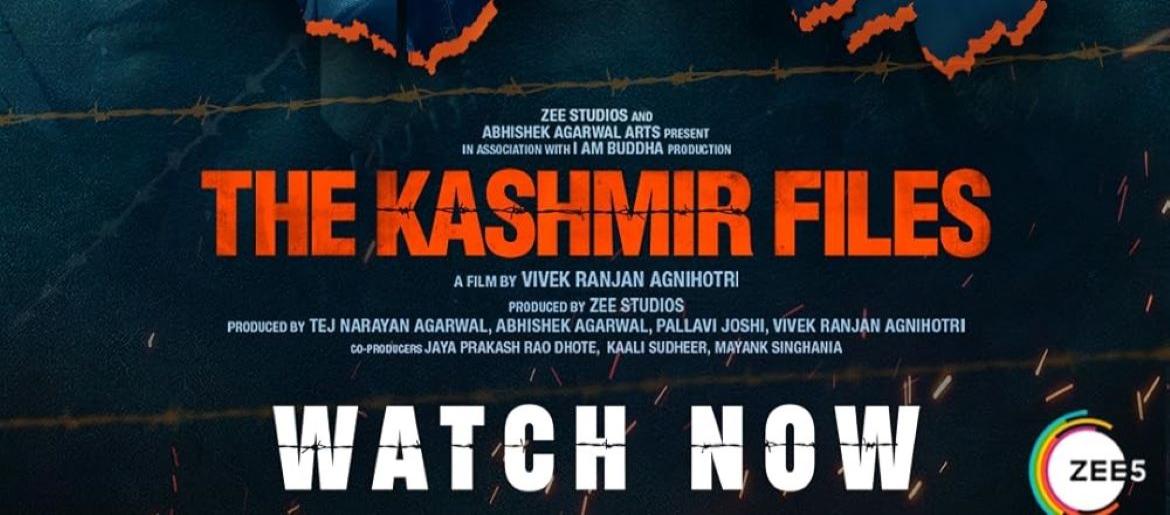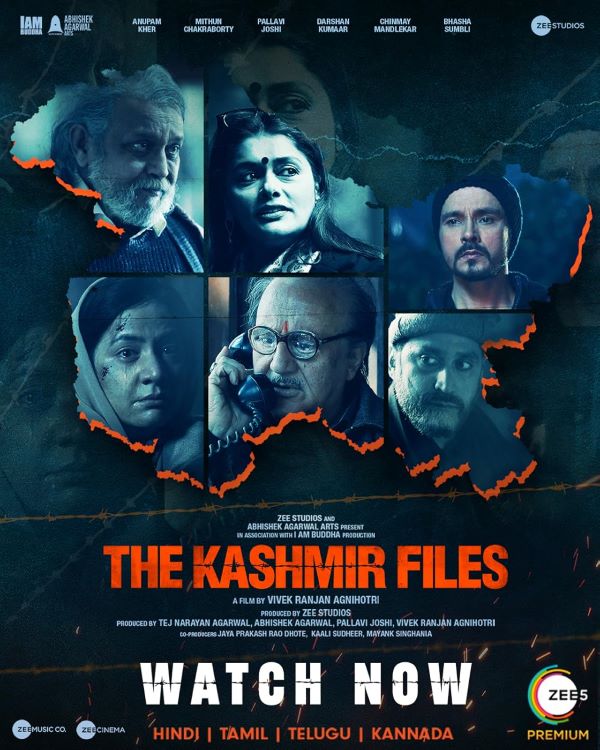
The Kashmir Files Font
What Font is The Kashmir Files?
The The Kashmir Files Font used in the film’s word-mark is very close in style to Neue Helvetica Pro 97 Condensed Black — a heavy, tightly-condensed sans-serif typeface that conveys seriousness and impact. Since this is a premium font, we’ve found a free alternative font that captures a similar bold, narrow aesthetic — ideal for design work inspired by the movie’s visual tone.
About The Kashmir Files
The Kashmir Files (2022) is an Indian Hindi-language drama film directed by Vivek Agnihotri. The story examines the 1990 exodus of Kashmiri Pandits from the Kashmir Valley, told through the lens of families, survivors and truth-seeking individuals. With its stark subject matter and gripping emotional journey, the film’s typography – strong, compressed, and bold – supports an identity of urgency and cumulative weight.